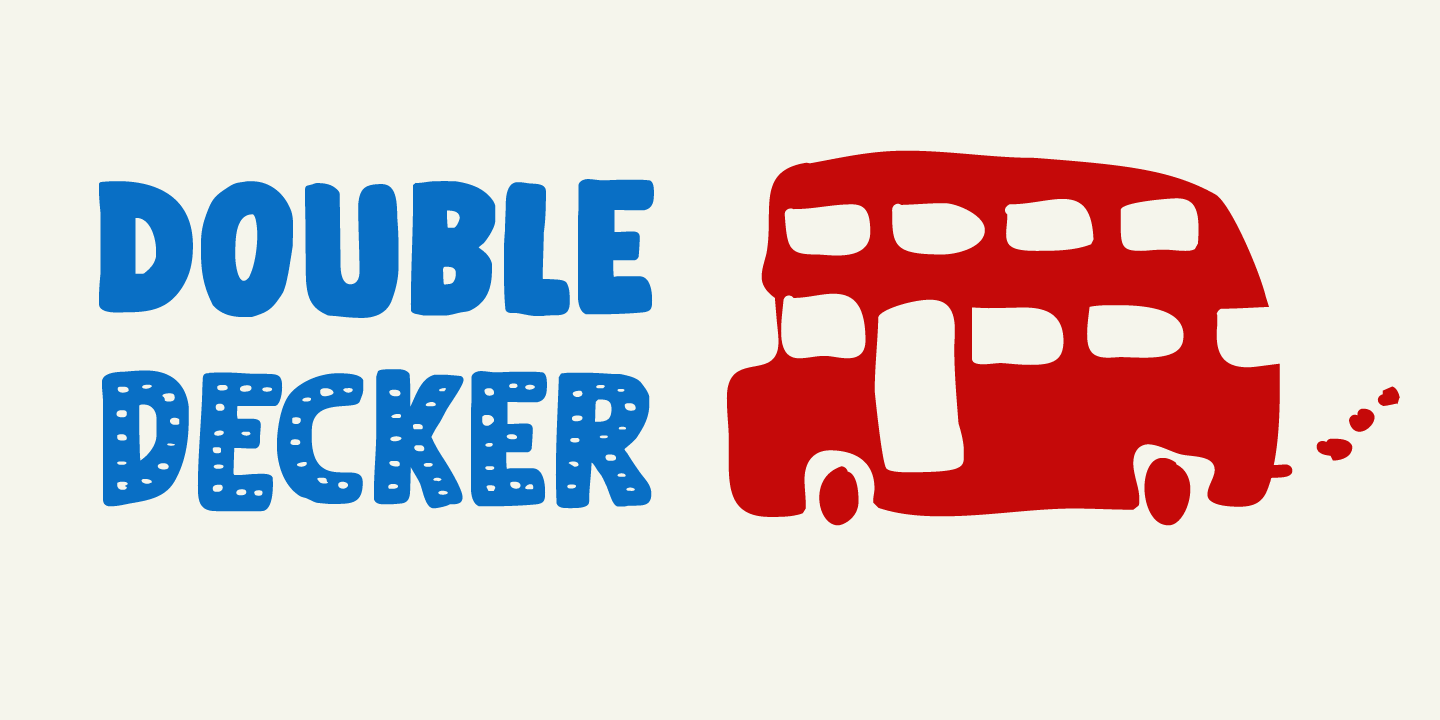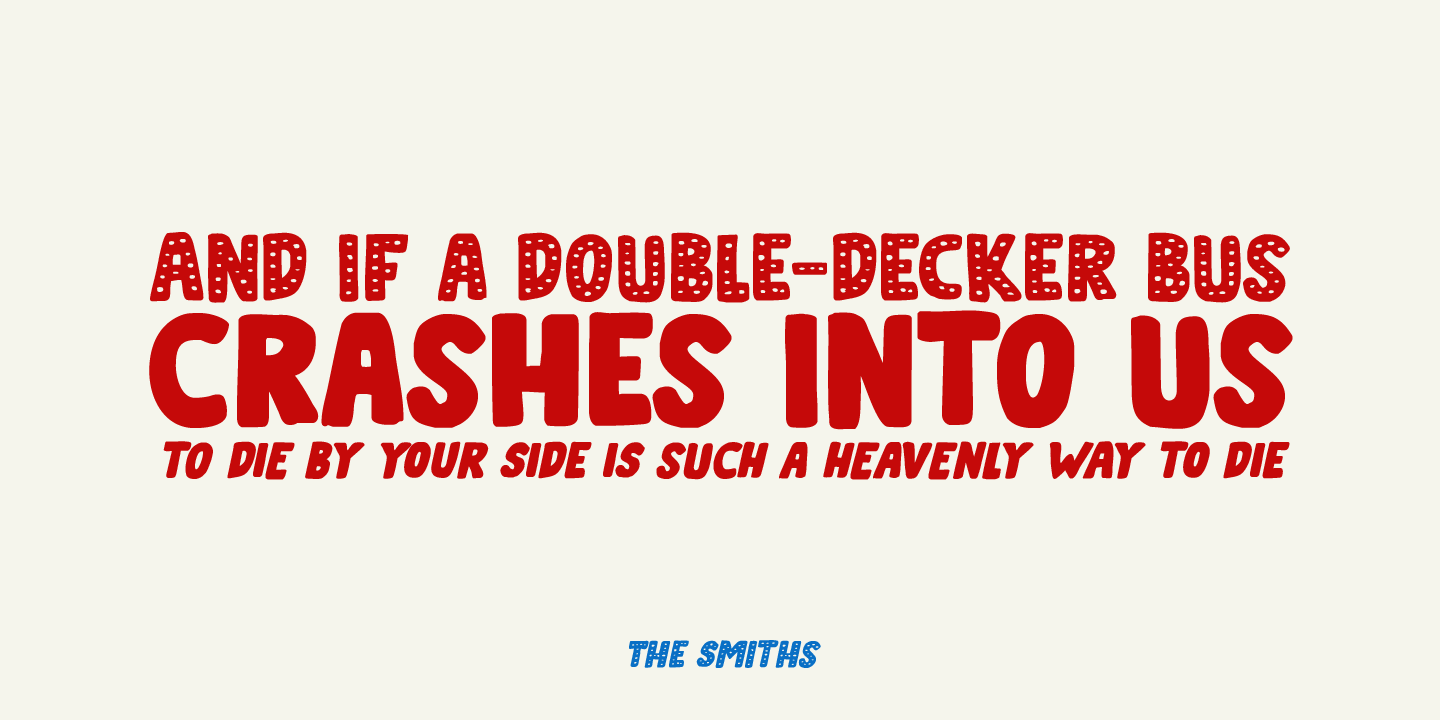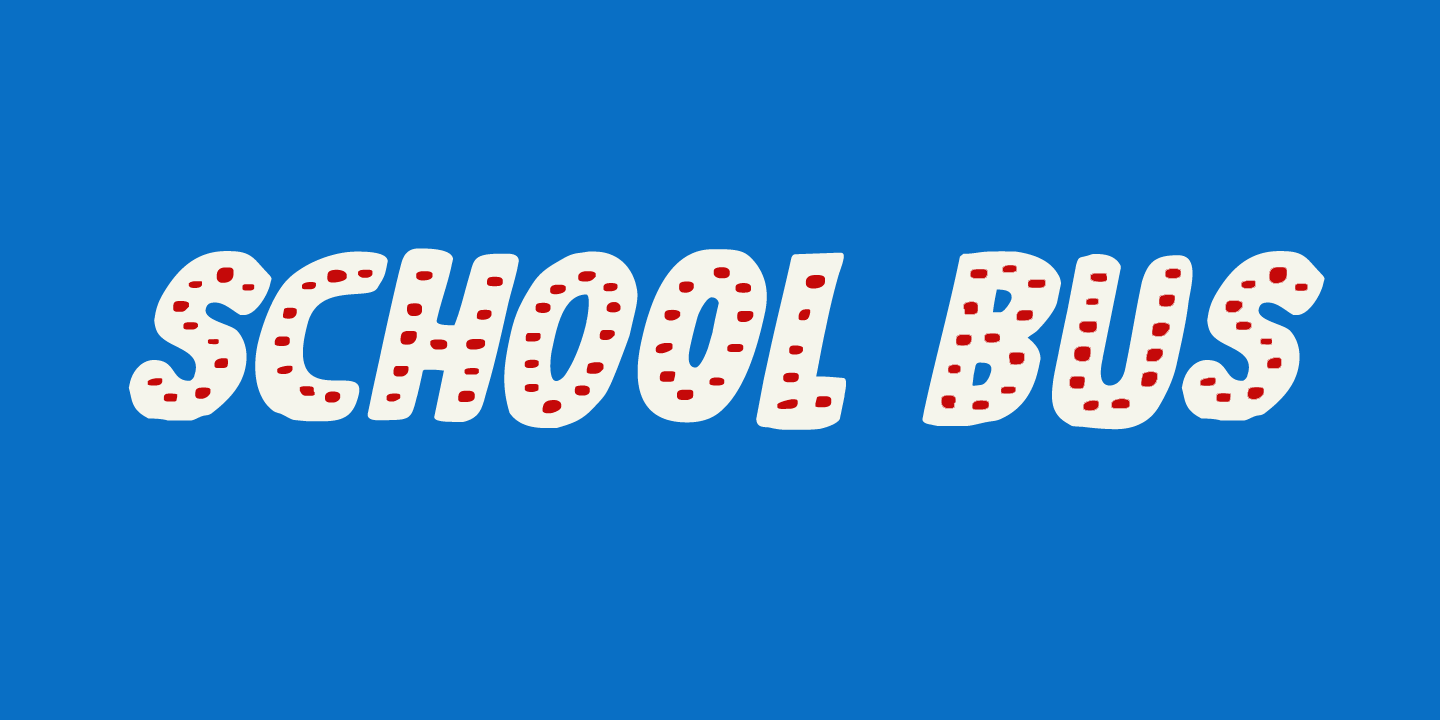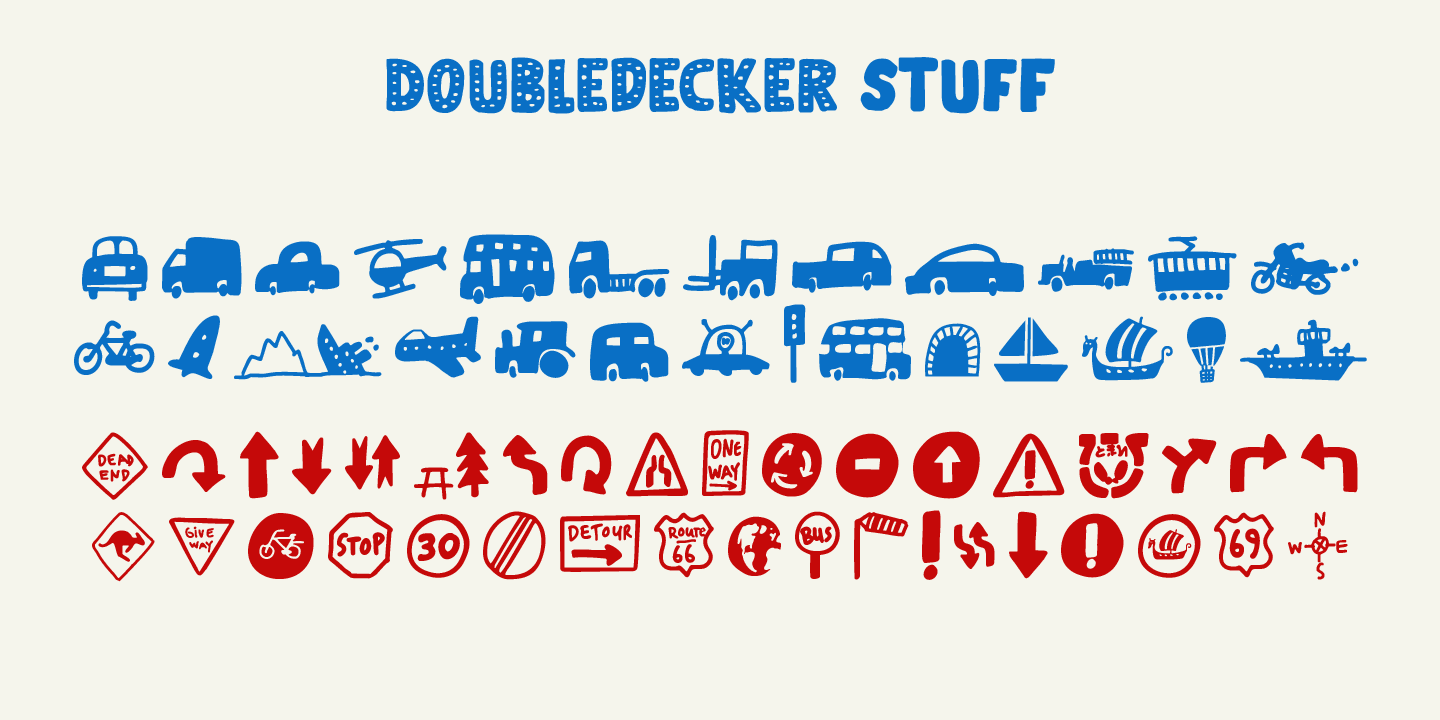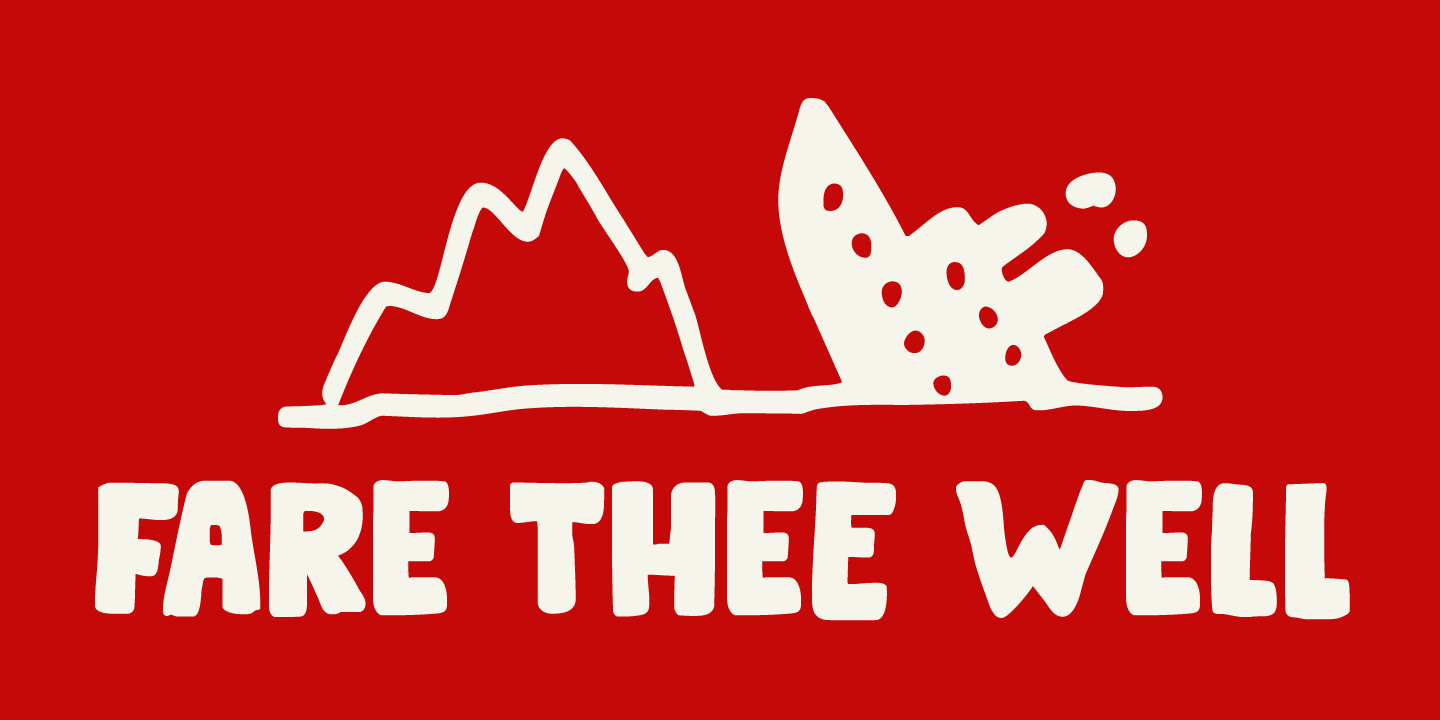
Doubledecker
Font Family by Hanoded
I love riding English double decker buses! I haven't been on one lately, but for some reason I had an image of a red double decker bus in my head when I made this font.
Doubledecker is a bold, cartoon-like, handmade font. It comes in regular and dots, plus a bonus doodle font called Doubledecker Stuff. Use it for any design that needs a tad of loud, a pinch of unusual and a wee bit of polka.